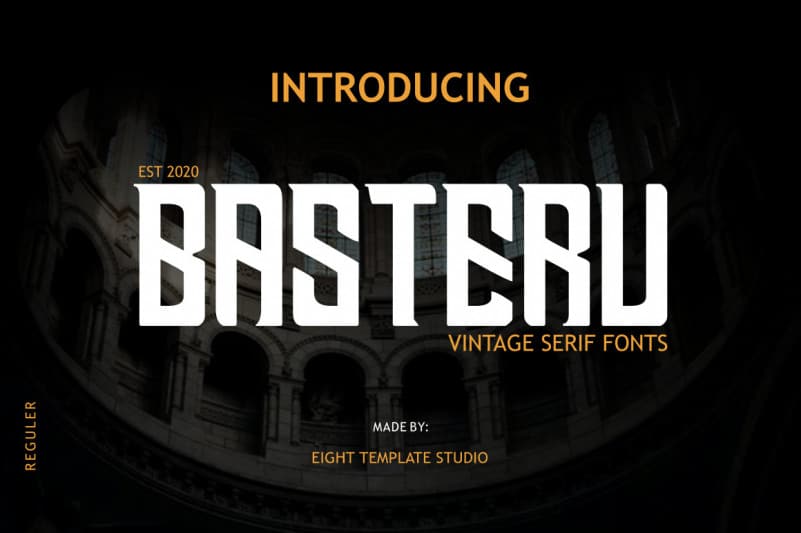
Basteru Vintage Serif Font
Basteru is a vintage serif font created for your needs. Basteru is very suitable for logos for branding, typographic designs, badge designs, product packaging, invitations, offers, t-shirt designs, label posters, special events, and anything that requires vintage tastes.